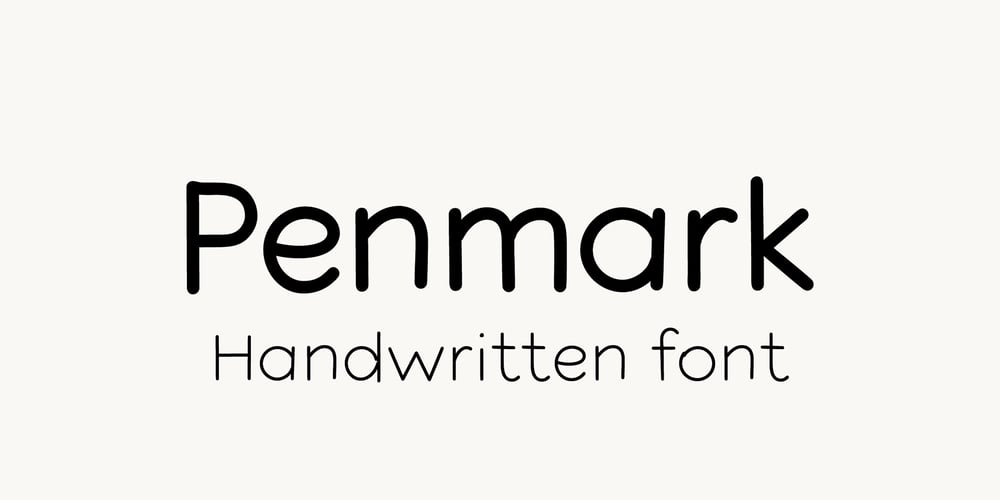
Penmark
Penmark font
Penmark Font Family was designed by Anton Kokoshka and published by Anton Kokoshka. Penmark contains 4 styles and family package options. Penmark is a unique handwritten grotesque font that adds a distinctive touch to your designs. Its casual yet elegant style is versatile, making it ideal for various applications, including crafting children’s books, designing greeting cards, or infusing warmth into your projects.